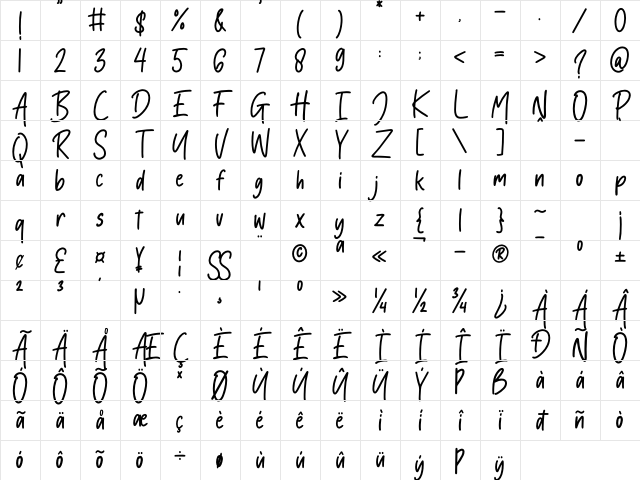
Orange Blossom Regular
Designer: Muhamad Fikry Nuralif
Design Context for Orange Blossom
Orange Blossom is a composed and adaptable typeface that performs quietly and consistently across a wide range of design contexts.